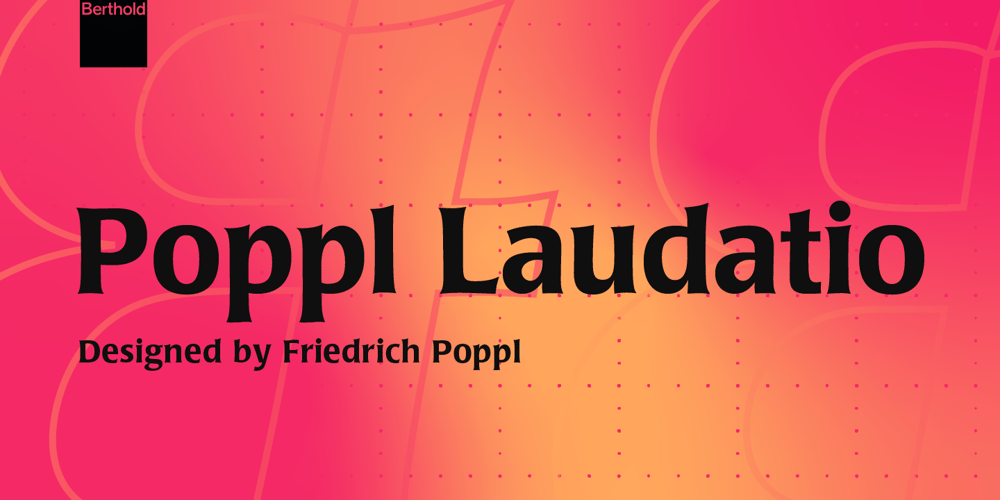
Poppl-Laudatio
Poppl-Laudatio font
Poppl-Laudatio Font Family was designed by Friedrich Poppl and published by Berthold. Poppl-Laudatio contains 32 styles and family package options. Designed by German graphic designer and professor Friedrich Poppl, Laudatio was released by Berthold in 1982, the year of Poppl’s death. Laudatio is a distinctive sans serif with a large, rectangular x-height and strokes that show the influence of Poppl’s background in calligraphy. It has an open, contemporary feel and is appropriate for both text and display work.